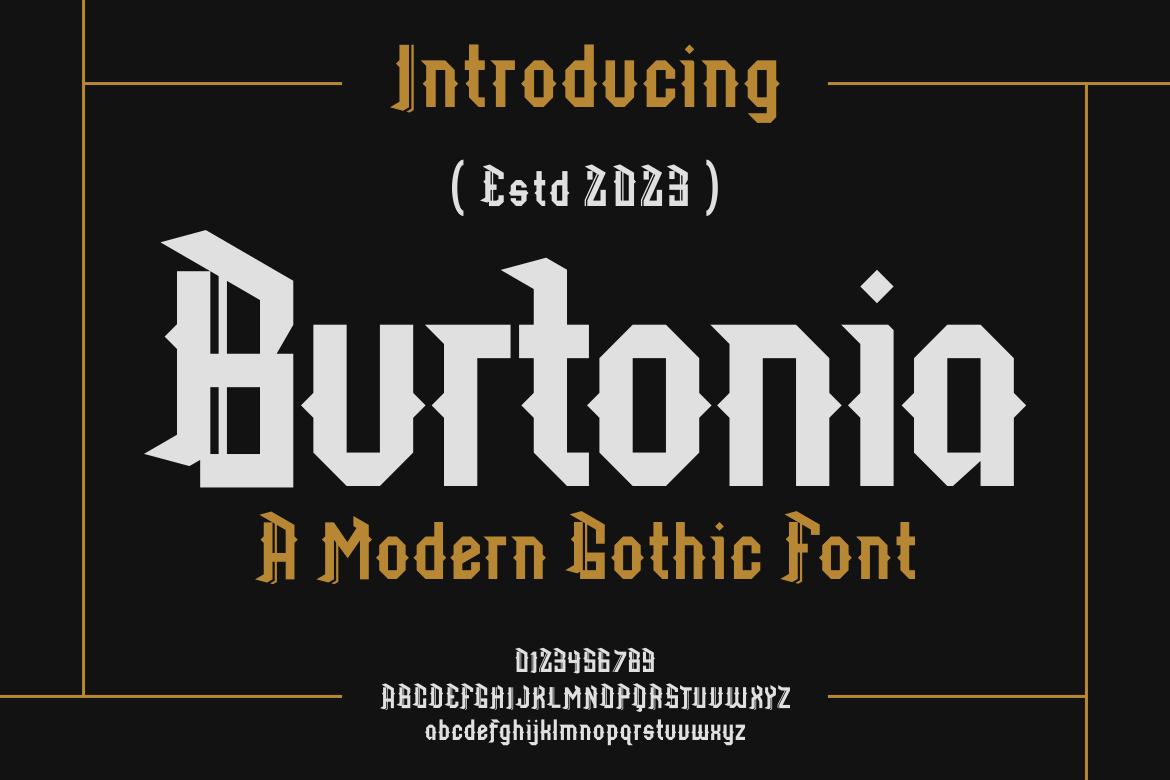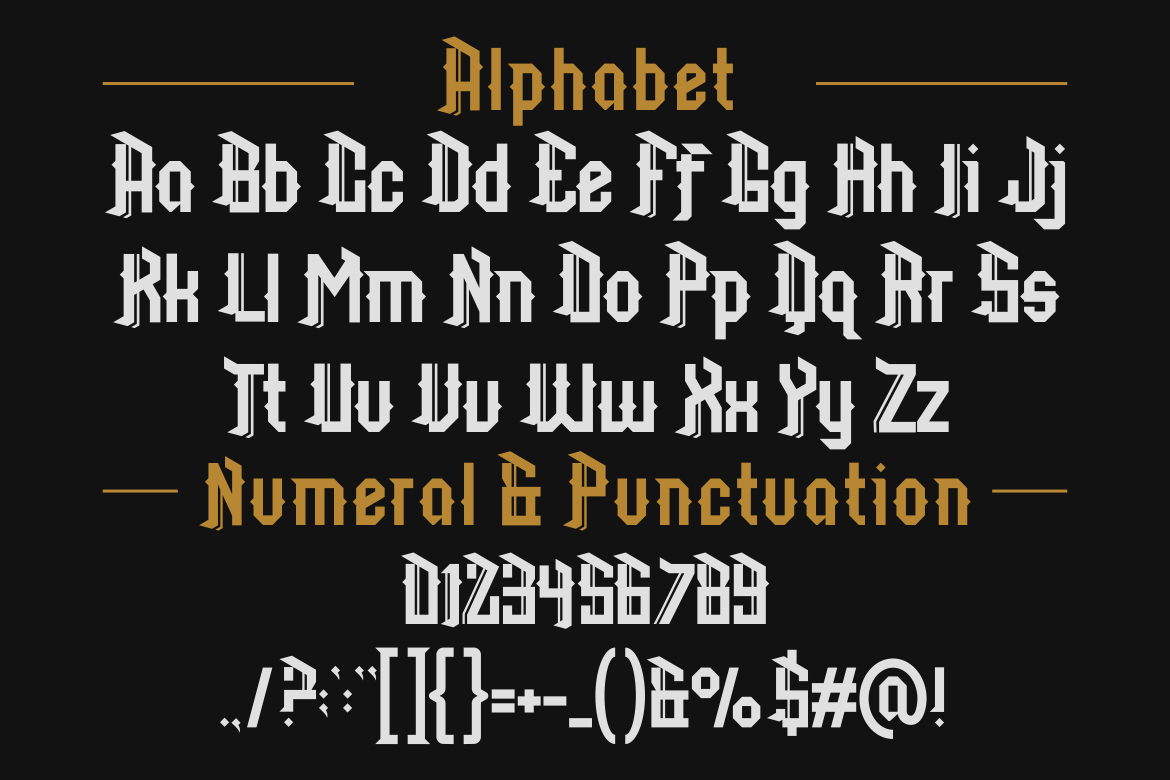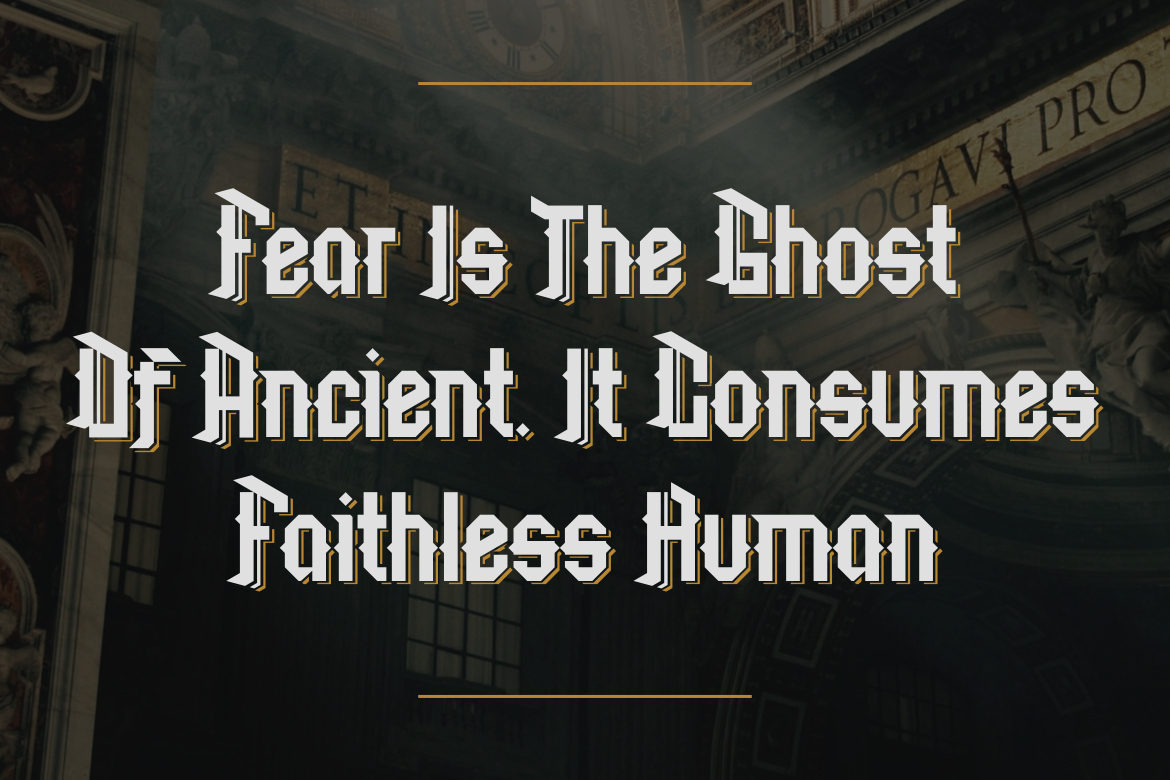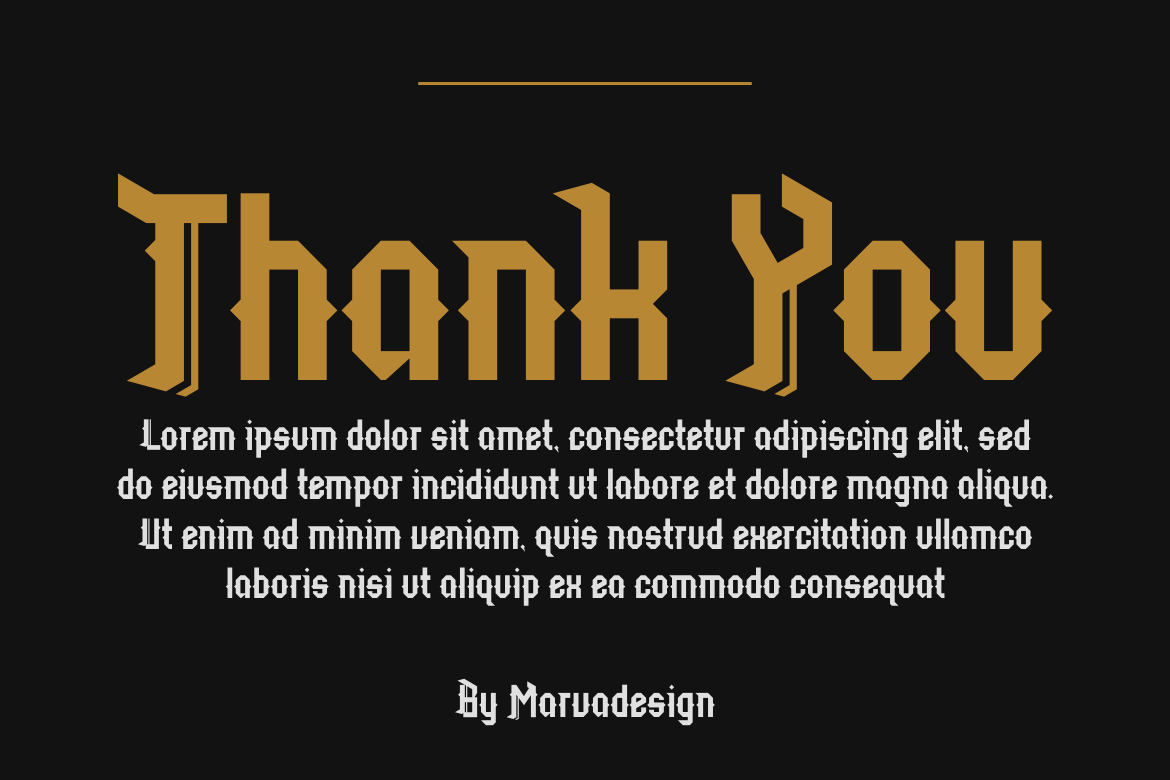
Burtonia Font
About Burtonia Font
Burtonia is a bold and authentic display font. The font is suitable for any branding project like logo, t-shirt printing, product, and many more. outstanding in a wide range of contexts.